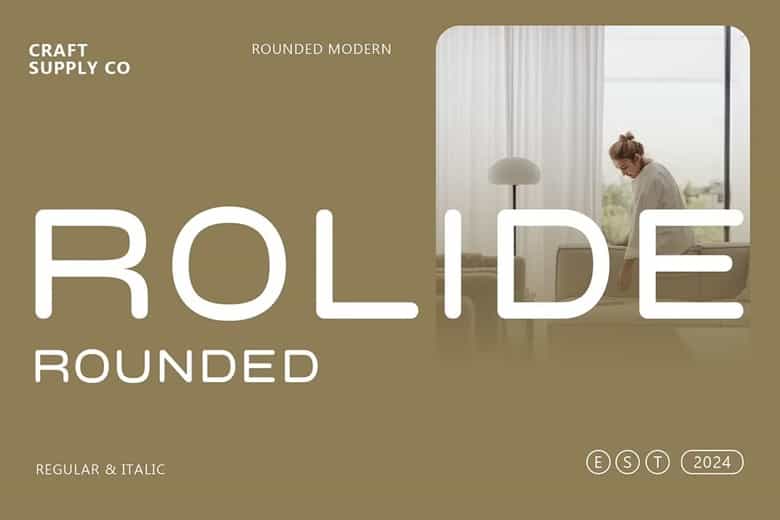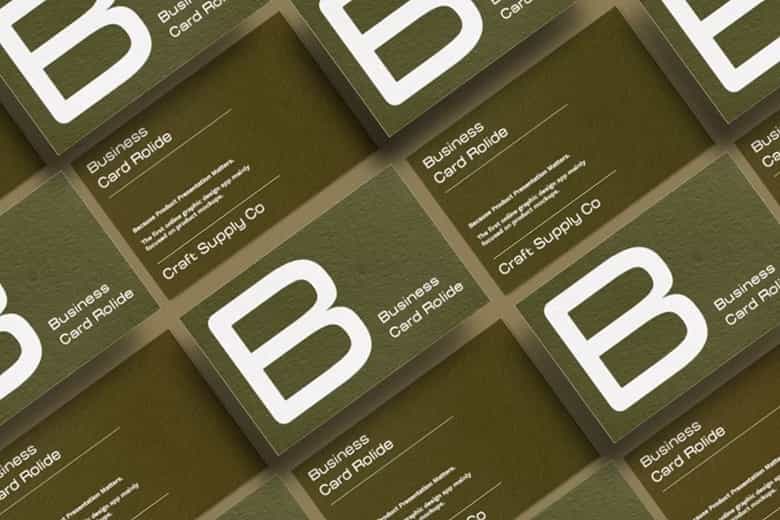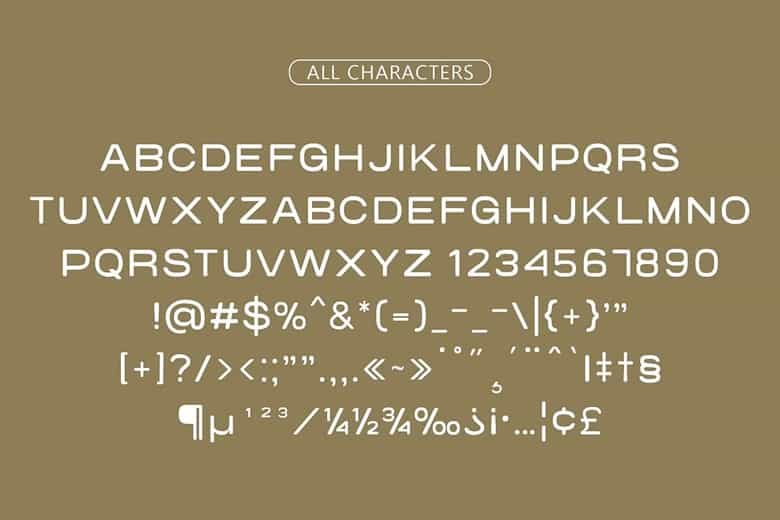
Rolide Rounded is an ultra clean and low contrast sans serif typeface that is ideal for many design applications with balanced and elegant look. Urban Style Giving a nod to the present generation, This font comes with a very modern look which will be perfect for projects that need that modern and chic touch.